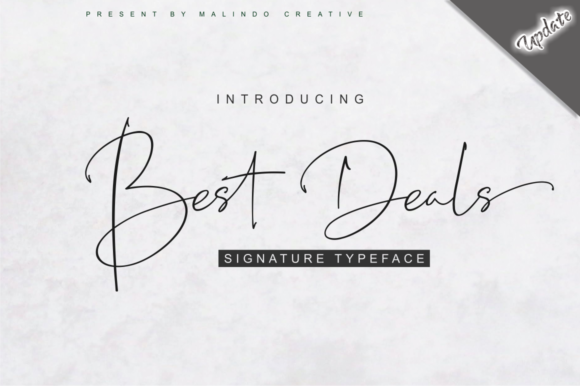
The Quest for the Perfect Font: Discovering Best Deals
I still remember the design project that led me to Best Deals, an elegant signature font that has the authentic style of a real ink pen. I was working on a branding project for a high-end boutique, and my client specifically asked for a font that exuded luxury and sophistication. I scoured the internet, tried out countless fonts, but none seemed to fit the bill. That was until I stumbled upon Best Deals, and it was love at first sight! ✨
An Honest Review of Best Deals
- 💯 Elegant and sophisticated: Best Deals has a unique, high-end feel that’s perfect for luxury brands, wedding designs, or any project that requires a touch of class.
- ✅ Authentic ink pen feel: The font’s texture and imperfections give it a beautiful, handmade quality that’s hard to replicate with digital fonts.
- 🎨 Versatile: Best Deals comes in a range of styles, from regular to bold, making it suitable for various design applications.
While Best Deals is an amazing font, it’s not without its quirks. For instance:
- 🤔 Limited character set: Best Deals has a slightly limited character set, which might make it less suitable for projects that require a wide range of special characters.
- ⚠️ Not ideal for body text: Due to its elegant, cursive nature, Best Deals is best used for headlines, titles, or signatures, rather than body text.
- Experiment with OpenType features like ligatures and stylistic alternates to add more flair to your design.
The Story Behind Best Deals
Best Deals was designed with the intention of capturing the essence of traditional ink pen writing. The creator aimed to produce a font that felt both luxurious and personal, perfect for those special design projects that require a unique touch. While the exact backstory might be fictional, the inspiration clearly comes from a passion for beautiful handwriting and classic typography.
| Font Name | Best Deals Font |
| Author | Malindo Creative |
Q: What makes Best Deals unique?
A: Best Deals stands out due to its elegant, sophisticated style that mimics the look of real ink pen writing, making it perfect for luxury brands and high-end designs.
Q: Does Best Deals support OpenType features?
A: Yes, Best Deals supports various OpenType features, including ligatures and stylistic alternates, which can enhance your designs.
Q: Is Best Deals suitable for body text?
A: Due to its elegant, cursive nature, Best Deals is best used for headlines, titles, or signatures, rather than body text.